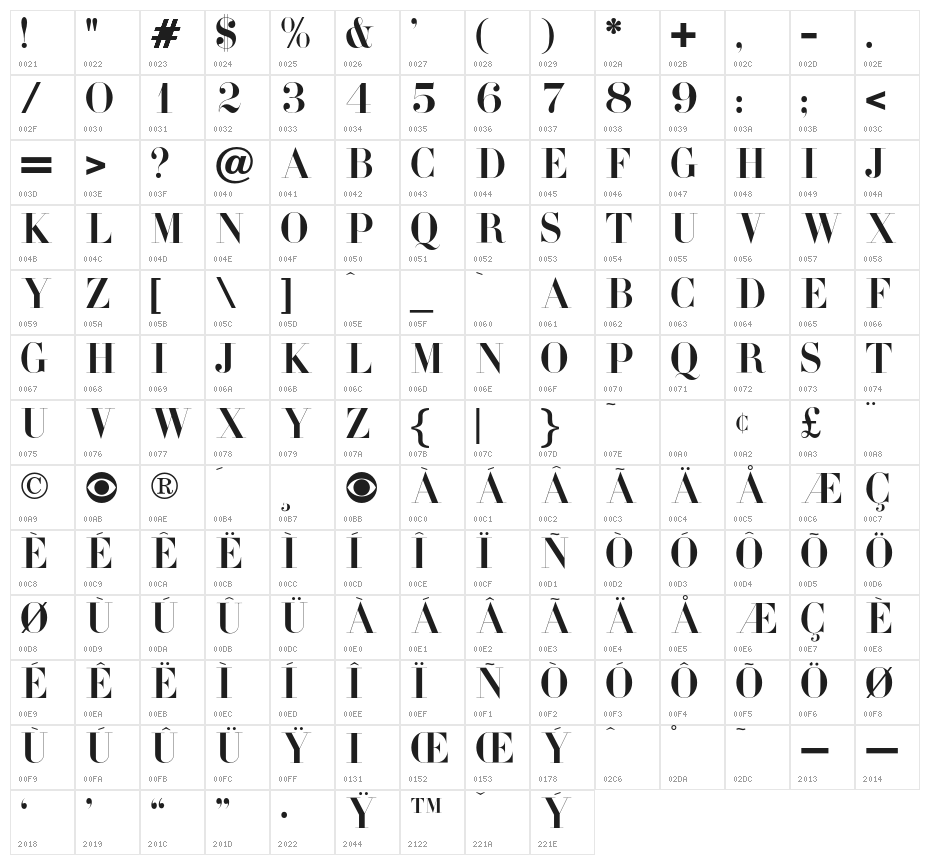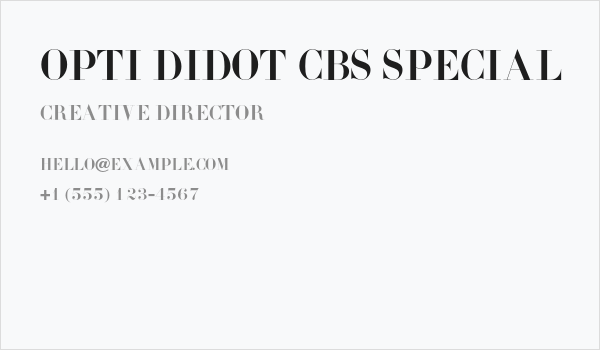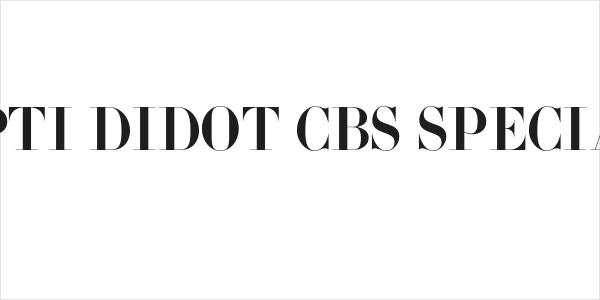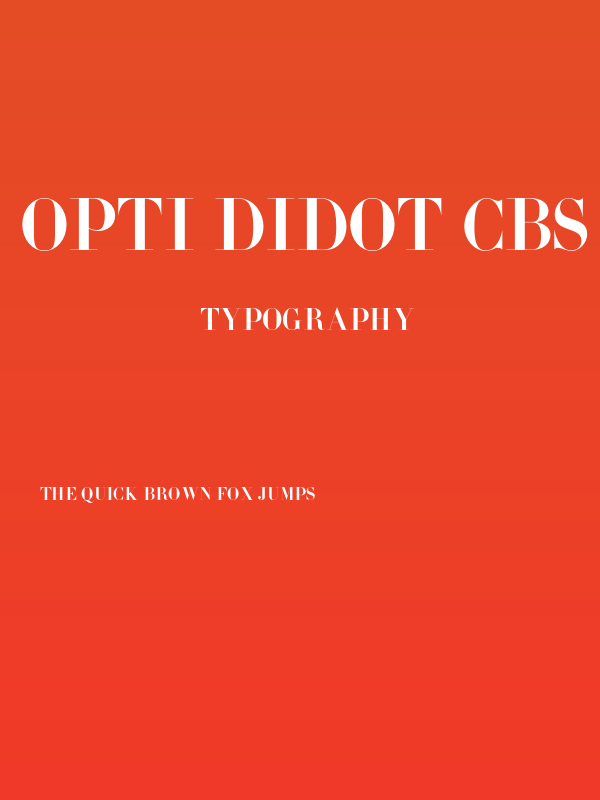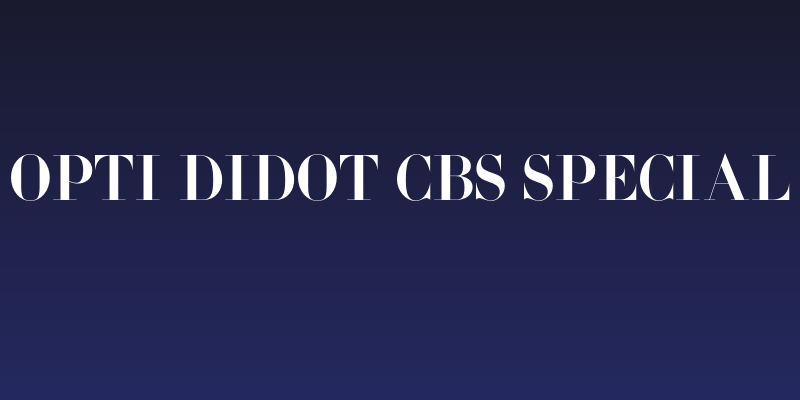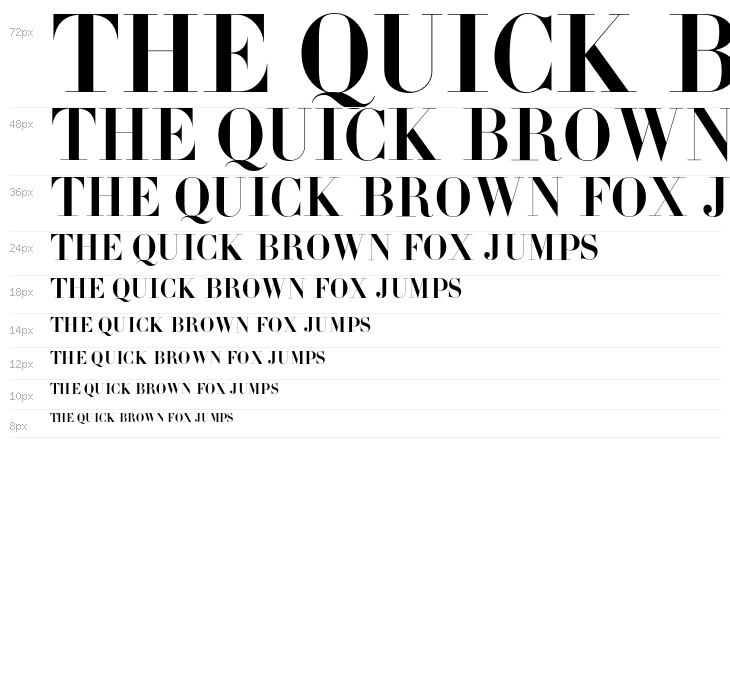
OPTI Didot CBS Special Font
OPTI Didot CBS Special Description
This font exudes elegance and sophistication with its high contrast between thick and thin strokes, characteristic of a classic serif style. The letters are sharply defined, with vertical stress and delicate serifs that add a touch of refinement. The uppercase letters are particularly striking, with a bold presence that commands attention. The numerals and special characters maintain the same level of detail and precision, making them suitable for a variety of formal applications. The overall design is timeless, making it ideal for projects that require a touch of class and tradition.
| Use Case | Headlines, Logos, Editorial design |
| Proposed Projects | Ideal for luxury branding, editorial design, wedding invitations, and high-end product packaging. |